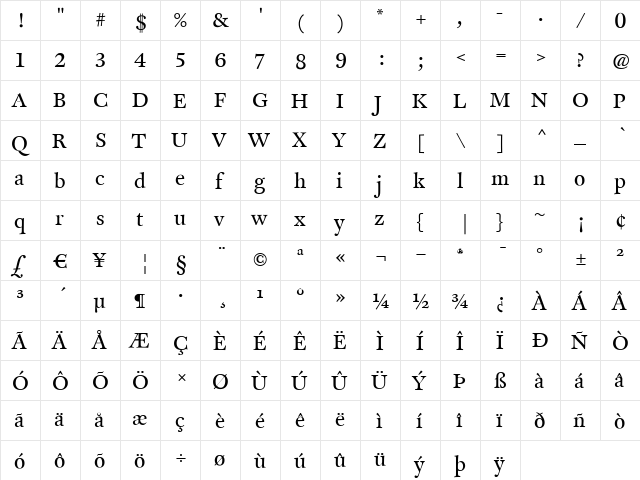
CliffordEighteen Regular
CliffordEighteen takes a measured approach to typography — its balanced proportions and neutral character make it a reliable workhorse for both digital and print work.